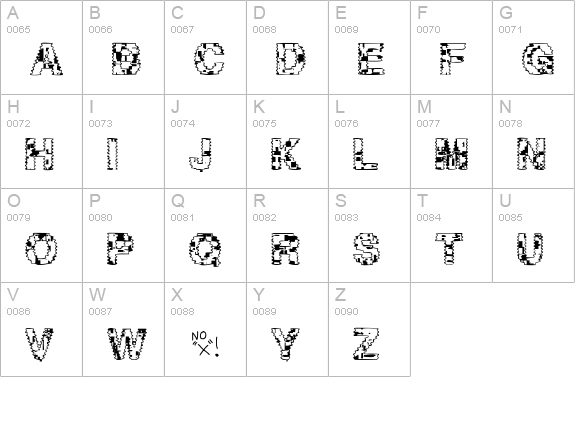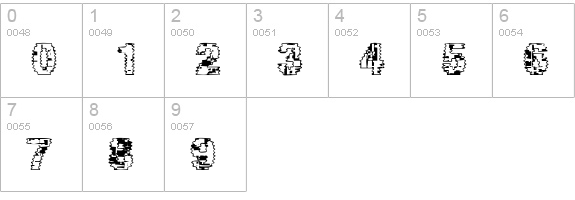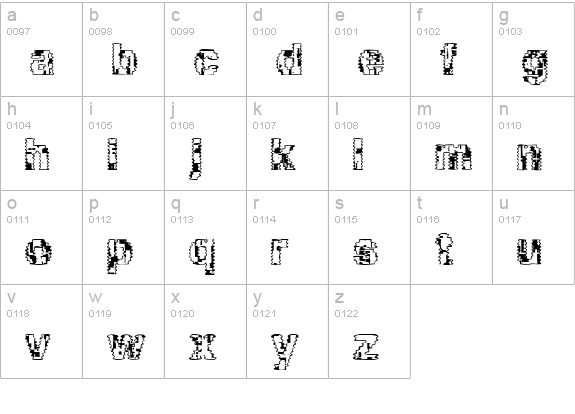
Asylum Font Details
Asylum font is a hauntingly beautiful typeface that captures the essence of mystery and intrigue. Its sharp angles and intricate details exude a sense of darkness and depth, making it perfect for projects that require a touch of the macabre. The font's unique design sets it apart from traditional styles, adding a sense of edginess and sophistication to any text. What sets Asylum font apart is not just its striking appearance, but also its accessibility. This font is freely available to download at FontsMarket.com, making it a versatile choice for designers and creatives looking to add a touch of drama to their work without breaking the bank. Whether you're working on a poster, logo, or any other design project, Asylum font is sure to make a lasting impression.